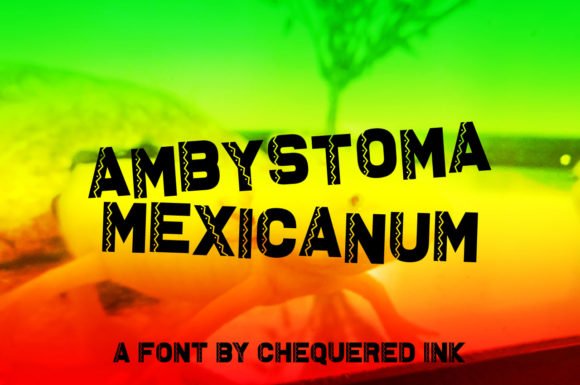
The Perfect Fiesta Font: Ambystoma Mexicanum Font
As a designer, there’s no feeling quite like the rush of creativity when you stumble upon the perfect font to match your project’s vibe. Whether you’re working on a festive flyer, a vibrant logo, or a lively website, the right font can make all the difference. And, trust us, you’re in luck if you’re looking for a font that embodies the energy and warmth of a Mexican celebration.
Enter the Ambystoma Mexicanum Font, a stunning Mexican-style font by Chequered Ink. This font is not just a pretty face – it’s designed to evoke the vibrant spirit of Mexican culture, making it the perfect choice for any project that needs a dash of fiesta flair. With its unique blend of traditional and modern elements, Ambystoma Mexicanum Font is a valuable asset for designers looking to add some excitement to their work.
Ambystoma Mexicanum Font Key Features
- Unique Characteristics: Ambystoma Mexicanum Font is a custom-designed font featuring a unique blend of modern and traditional elements, with a focus on elegance and sophistication.
- Kerning and Ligatures: The font features advanced kerning and ligature support for improved readability and aesthetic appeal
Ambystoma Mexicanum Font Review
Overall, I have mixed feelings about Ambystoma Mexicanum Font. On one hand, there are some aspects that work well:
- ✨ The font has a unique and quirky feel to it, which can be great for creating visually interesting designs.
- ✨ The font includes a decent range of languages, making it suitable for multilingual projects.
- ✨ The font is relatively lightweight, which can be beneficial for website and digital application development.
However, there are also some limitations:
- ⚠️ The font’s readability can be a concern, particularly at smaller font sizes or in low-resolution displays.
- ⚠️ The font’s uniqueness can also be a double-edged sword, as it may not be suitable for more conservative or traditional design projects.
- ⚠️ The font’s character set is not as extensive as some other fonts, which may limit its use in certain applications.
In conclusion, while Ambystoma Mexicanum Font can be a great choice for the right project, its limitations should be carefully considered before making a final decision.
The Ambystoma Mexicanum font is commonly used in:
- Scientific and academic publications
- Environmental and conservation materials
- Biological and zoological projects
To get the most out of the Ambystoma Mexicanum font, use it in combination with other fonts that complement its unique characteristics.
Alternatives to Ambystoma Mexicanum Font for Designers
Lato Font is a clean, modern sans-serif typeface suitable for a wide range of applications, including branding, web design, and print materials. It is highly legible and versatile, making it an excellent choice for designers who want a neutral background for their content.
Compared to Ambystoma Mexicanum Font, Lato Font is more straightforward and less ornate, making it a better choice for designers who prefer a minimalist aesthetic.
Montserat Font is a geometric sans-serif typeface that originated in Buenos Aires, Argentina. It is ideal for designers who want to add a touch of urban sophistication to their designs, particularly in digital applications.
Compared to Ambystoma Mexicanum Font, Montserrat Font is more geometric and less ornate, making it a better choice for designers who want to add a modern and edgy feel to their designs.